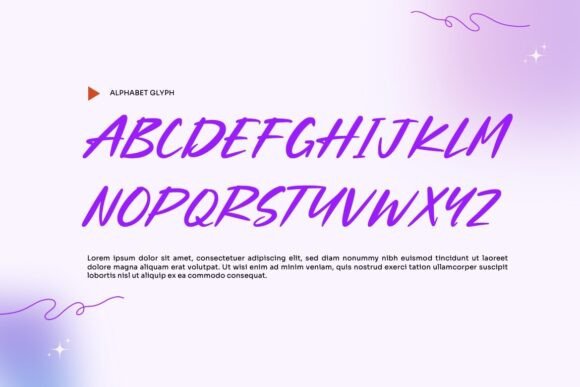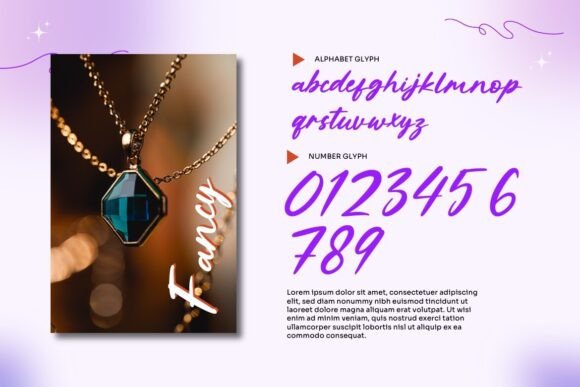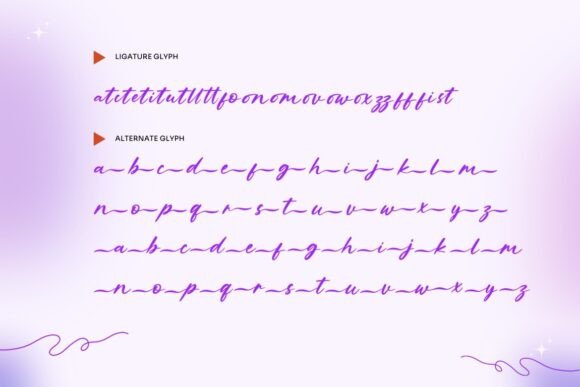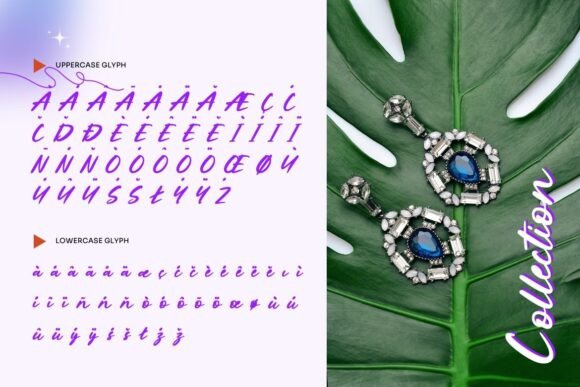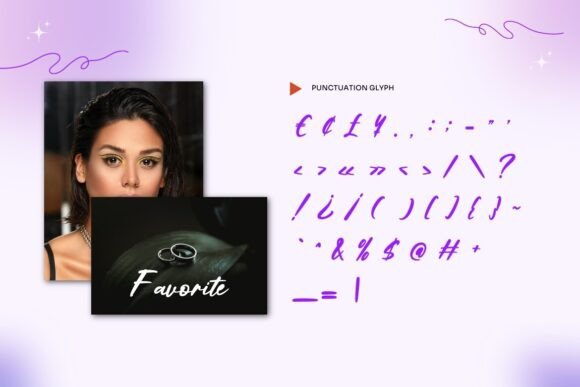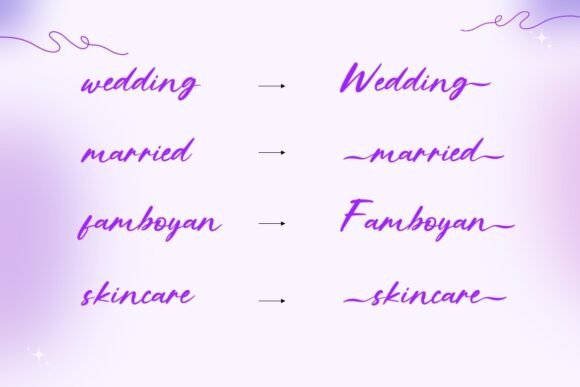
Introduction to Plantyeus Font
Plantyeus is a graceful feminine script font featuring flowing curves and intricate ligatures.
This typeface exudes elegance and creativity, ideal for fashion branding, luxurious invitations, and lifestyle blogs Let your designs bloom with Plantyeusโs delicate beauty.
Key Features of Plantyeus Font